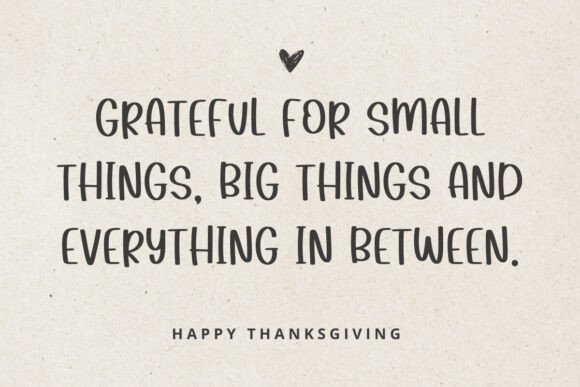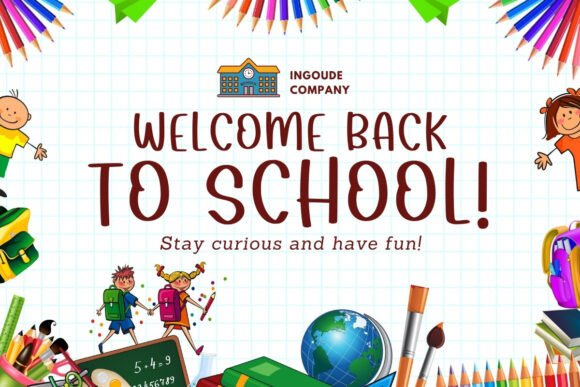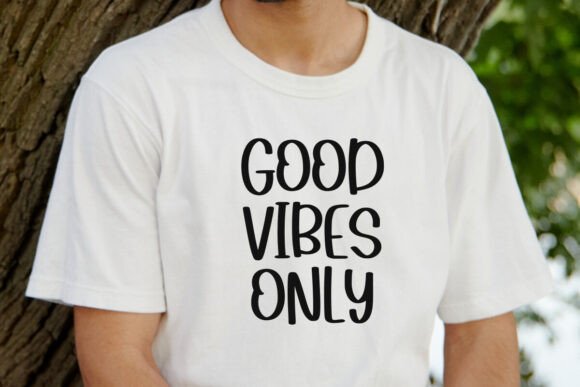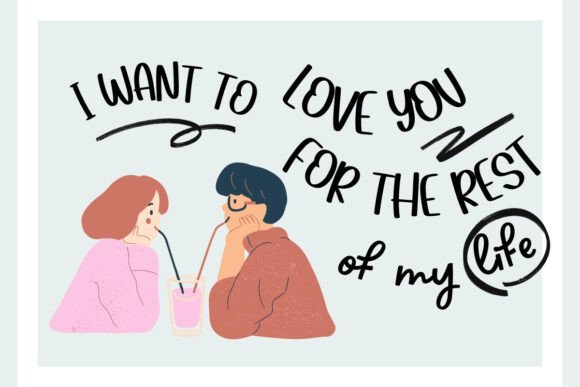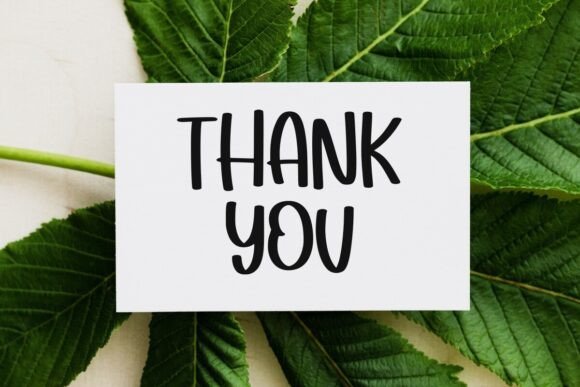
Introduction to School Farmhouse Font
Have you ever been working on a creative project, and suddenly, the perfect font pops up in your mind? For me, it was the moment I stumbled upon the School Farmhouse Font. Its unique sans-serif style and playful letterforms instantly sparked a wave of ideas for a fun branding project I was working on. The rounded edges and whimsical feel of this font added a touch of magic to my design, making it stand out from the crowd.
As a designer, finding the right font can be a game-changer. It’s what elevates a good design to an exceptional one. The School Farmhouse Font is a valuable resource for any creative project, offering a high-quality and versatile solution that can be used for everything from branding and packaging to posters and more. With its transparent background and free download option, it’s easy to incorporate into your next design project.
Key Features of School Farmhouse Font
- Unique Rustic Design: School Farmhouse Font offers a charming, hand-drawn aesthetic perfect for creative projects.
- Perfect for Farmhouse and Rustic-Themed Projects: School Farmhouse Font is ideal for designs related to agriculture, country living, and vintage decor.
Honest Review: School Farmhouse Font
As a designer, I’m always on the lookout for high-quality design resources that can elevate my creative projects. Recently, I stumbled upon the School Farmhouse Font, and I’m excited to share my honest review with you.
What works well: ✨ The School Farmhouse Font is a beautiful, hand-drawn script that’s perfect for creating a warm and inviting atmosphere in any design. The font is highly customizable, making it easy to adjust the size, color, and style to suit your needs. I also appreciate the fact that it comes with a transparent background, allowing me to easily overlay it on top of images or textures.
Limitations: ⚠️ While the School Farmhouse Font is a great addition to any design, it does have some limitations. The font is not suitable for large blocks of text, and it’s best used for headings, titles, and short phrases. Additionally, the font’s hand-drawn style can make it difficult to read at small sizes.
Overall, I’m impressed with the School Farmhouse Font. It’s a high-quality design resource that’s perfect for adding a touch of whimsy and personality to your creative projects. And the best part? It’s available for free download, making it a great option for designers on a budget.
Here are some features that I think are worth mentioning:
- High-quality, hand-drawn script font
- Perfect for headings, titles, and short phrases
Introduction to School Farmhouse Font
The School Farmhouse Font is a unique and charming design resource ideal for creative projects. With its free download option and high-quality design, it’s perfect for adding a personal touch to your work.
Tips for Getting the Most Out of School Farmhouse Font
To get the most out of this font, use it sparingly to add emphasis and create visual interest in your design. You can also experiment with different font sizes and colors to achieve the perfect balance.
Common Use Cases for School Farmhouse Font
The School Farmhouse Font is perfect for:
- Invitations and event graphics
- Personalized stationery and greeting cards
- Blog and website headers
- Photography and illustration captions